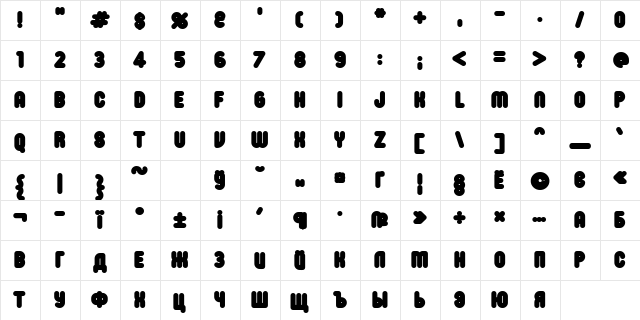
RonInset8 Extra Bold
RonInset8 offers clean, dependable letterforms without strong stylistic allegiance, making it a practical choice for designers who need flexibility. Its bold stroke weight gives it real presence on the page.